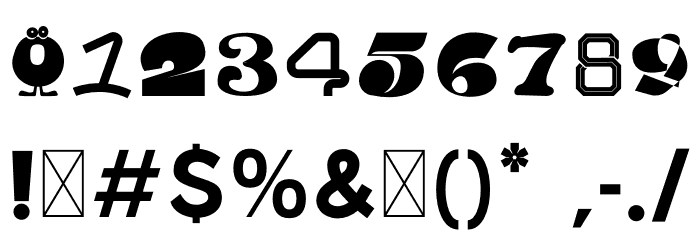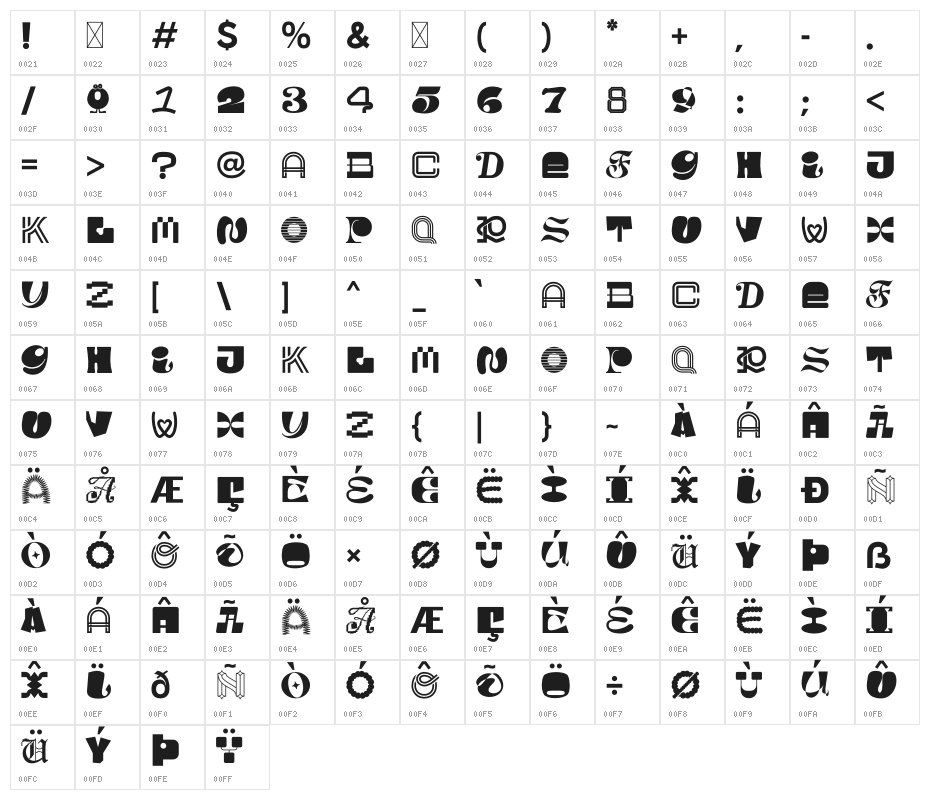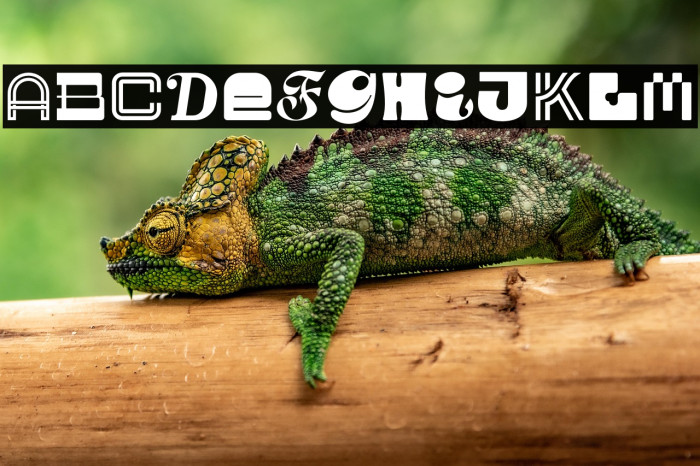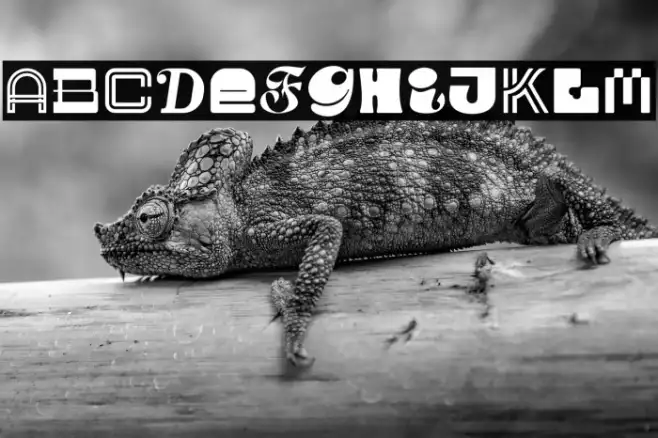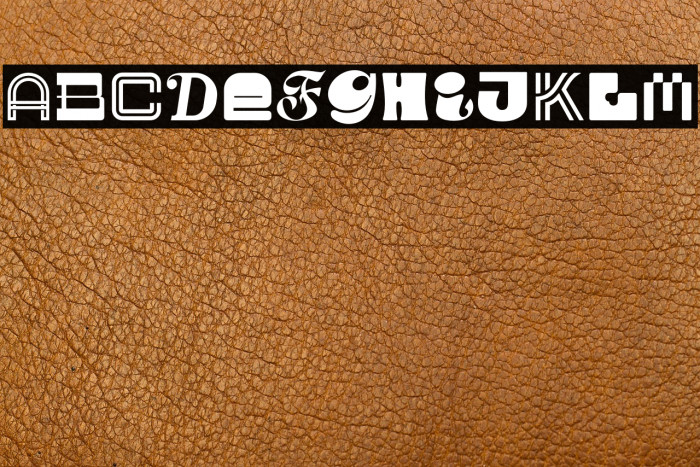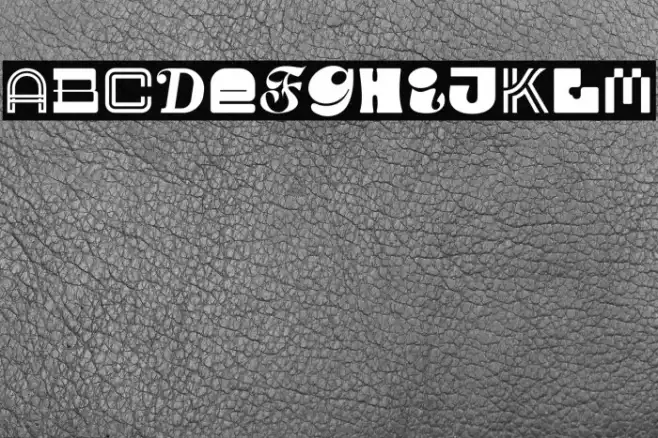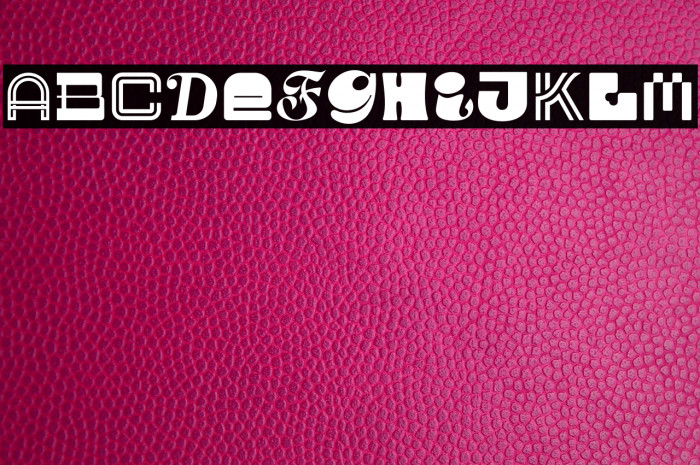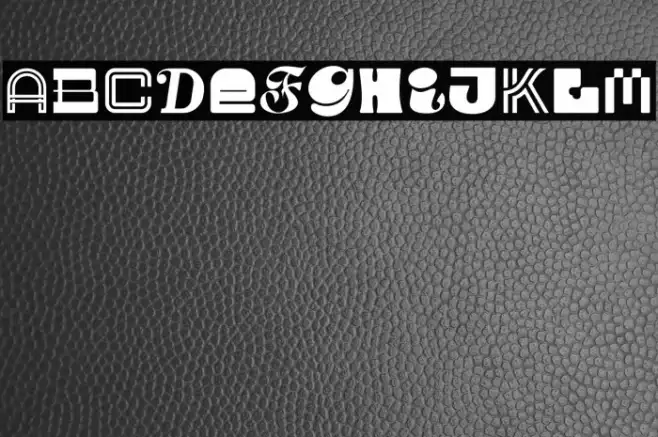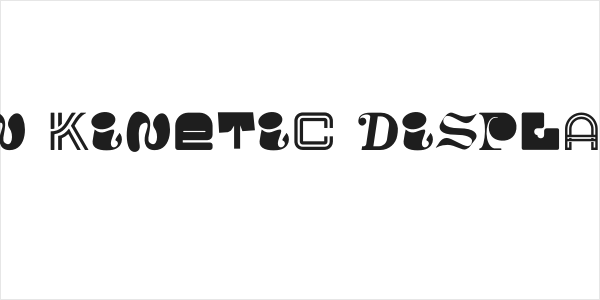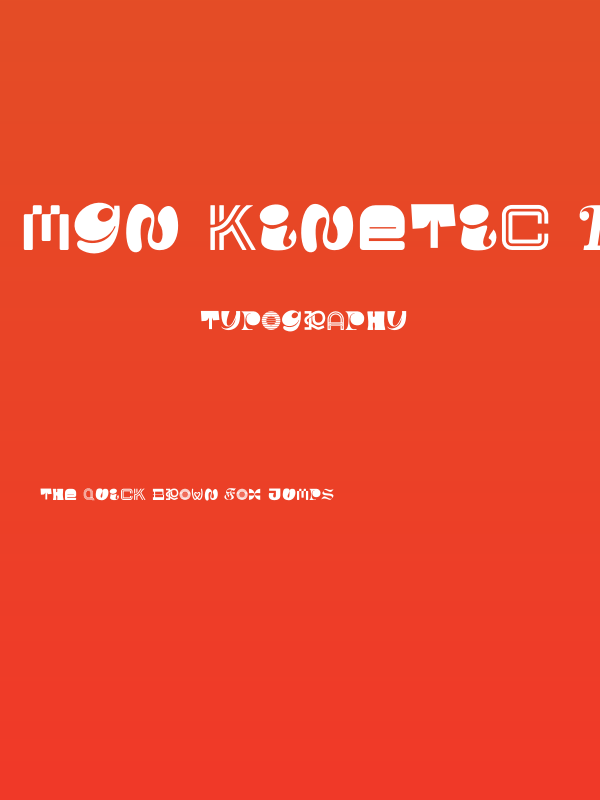
MGN Kinetic Display 3 Font
MGN Kinetic Display 3 Description
This font is a bold and dynamic display typeface that features a variety of unique and playful letterforms. Each character is distinct, with some incorporating geometric shapes, others using bold strokes, and some featuring intricate patterns or cutouts. The font has a strong visual impact, making it ideal for creative and artistic projects. Its eclectic mix of styles within the same typeface adds a sense of movement and energy, making it suitable for eye-catching designs.
| Proposed Projects | Ideal for posters, album covers, branding projects, and any design that requires a strong visual impact. |